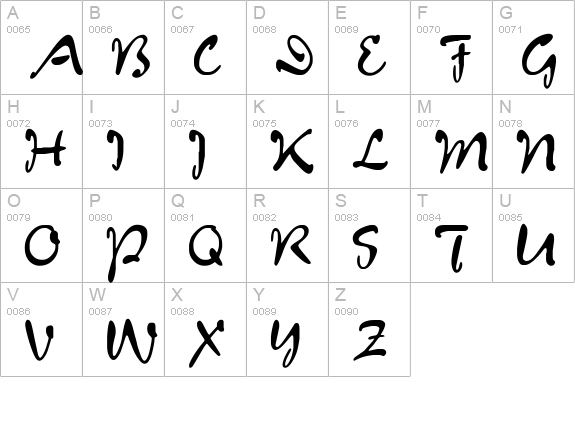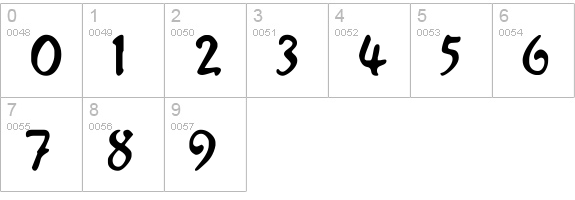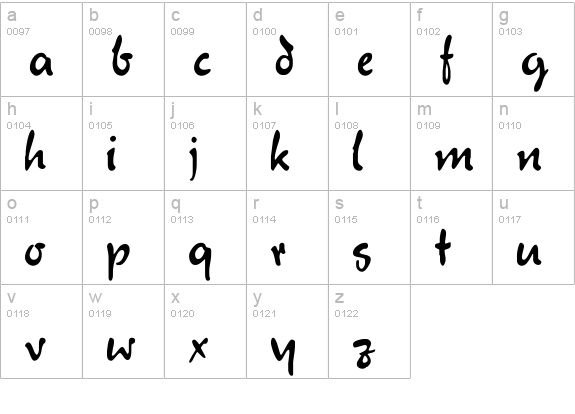
Juliet Regular Font Details
Juliet Regular is the standard, neutral variant in the Juliet typeface family \xE2\x80\x94 well suited to general body text, paragraphs, and standard typographic work.
Juliet Regular font is a stunning typeface that exudes elegance and sophistication. With its classic yet modern design, this font is perfect for a wide range of projects, from branding to editorial design. The graceful curves and clean lines of Juliet Regular make it a versatile choice for both print and digital applications. What's even better is that Juliet Regular is available for free download at FontsMarket.com. This means you can easily add this beautiful font to your collection without any cost. Don't miss out on the opportunity to enhance your designs with the timeless charm of Juliet Regular font. Download it today and elevate your creative projects to new heights.